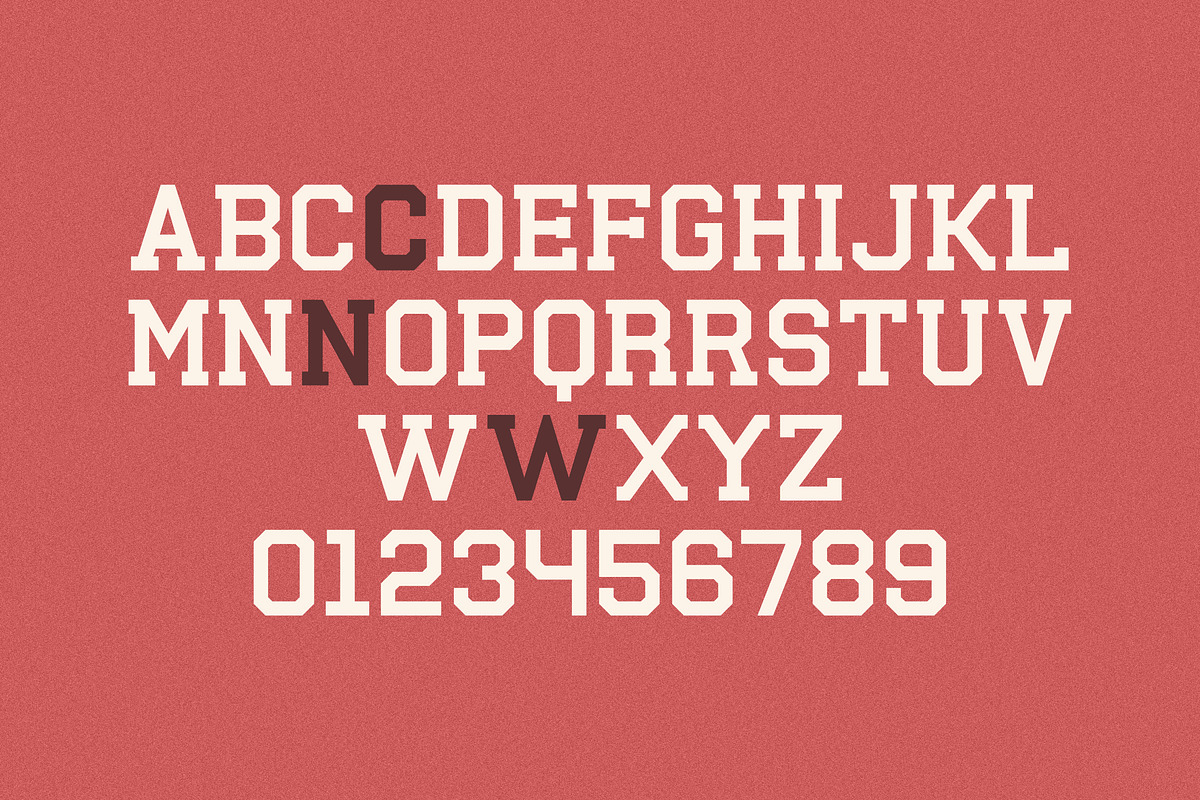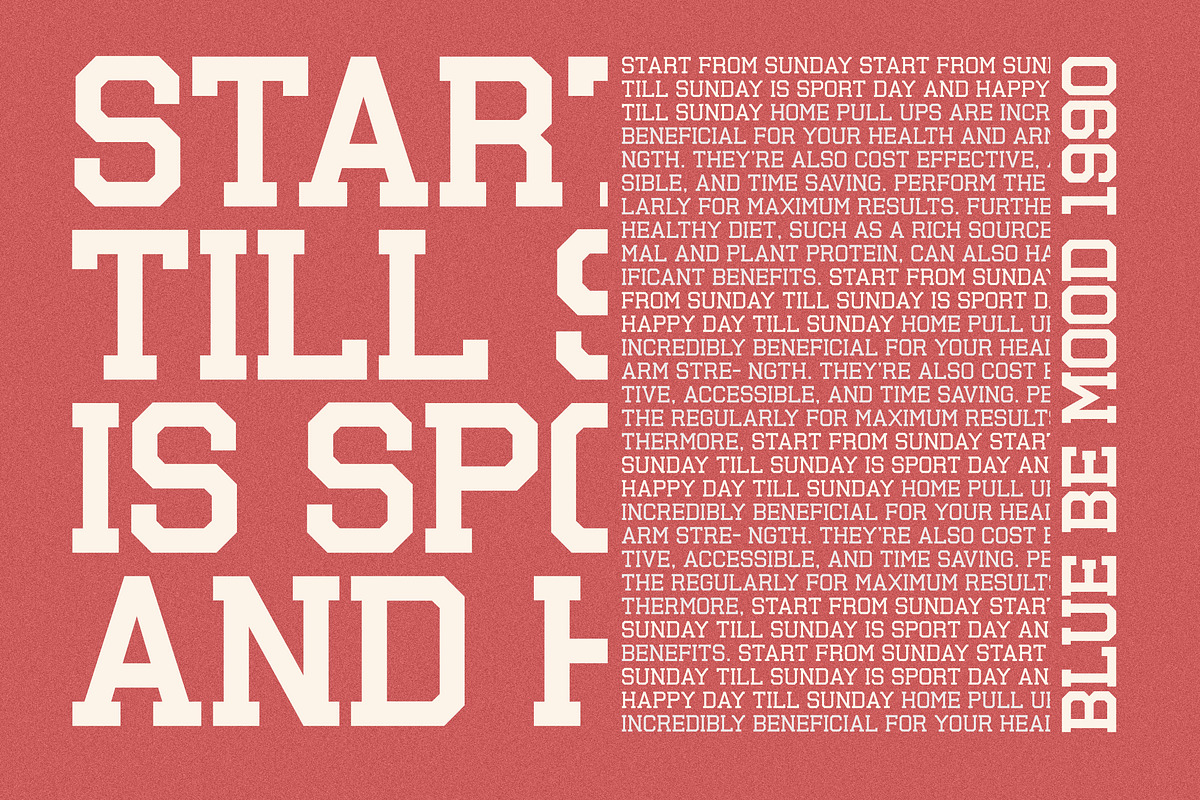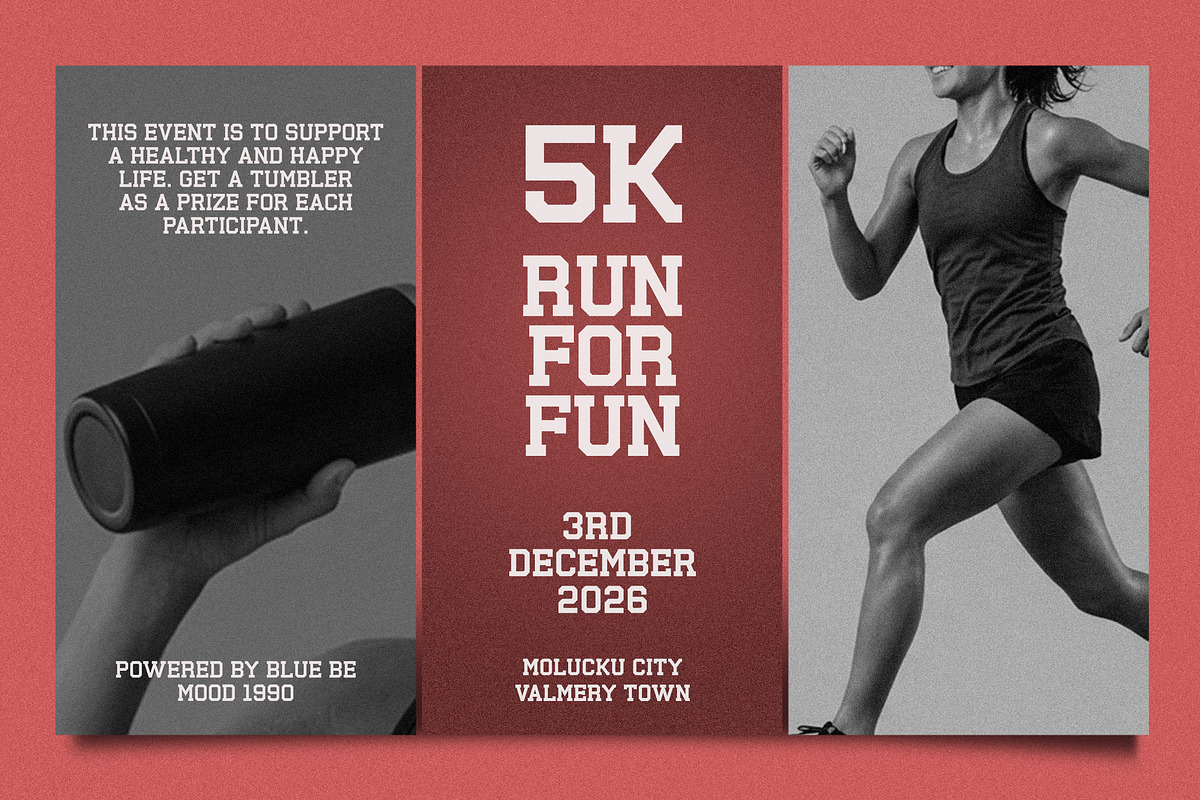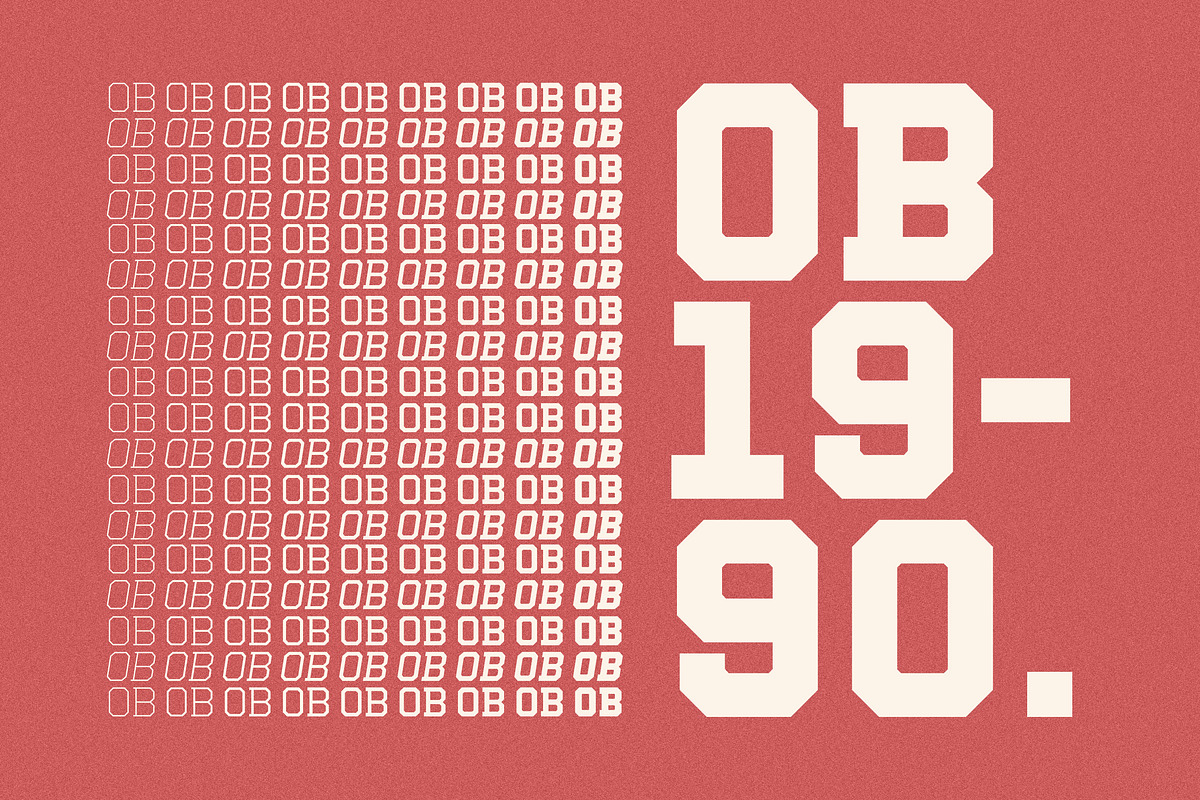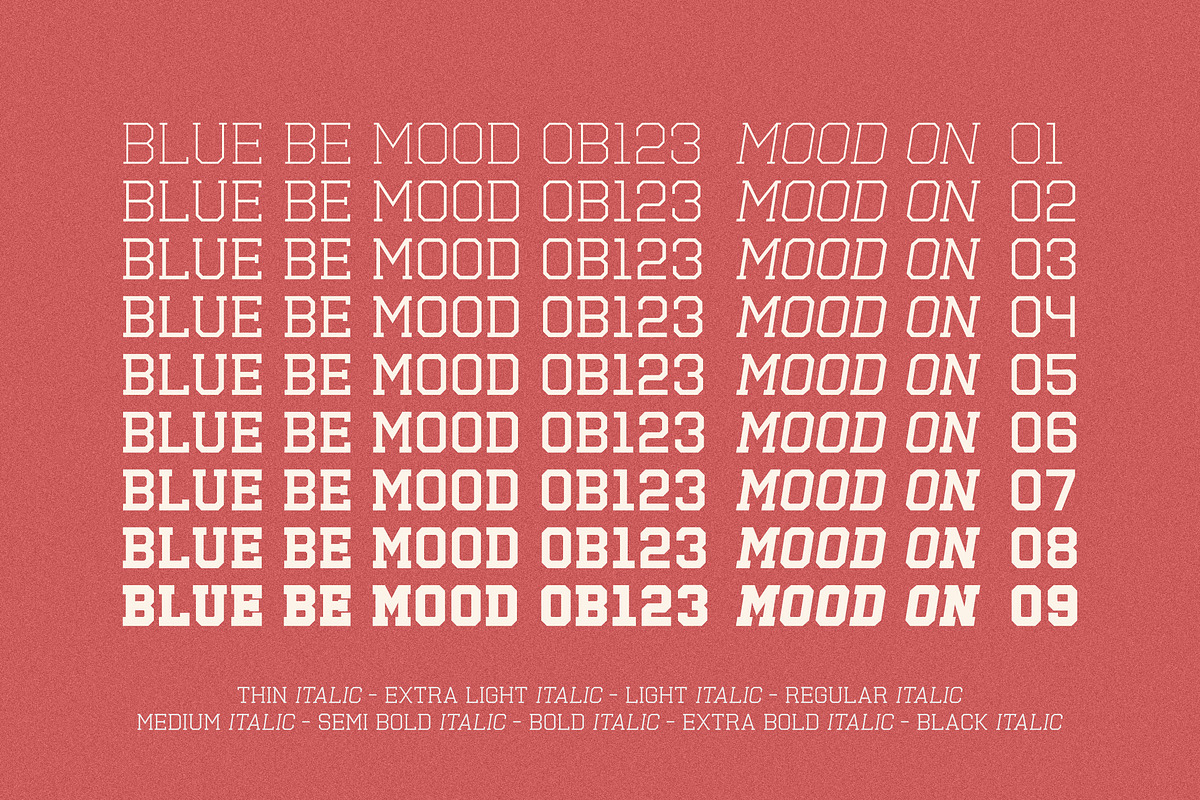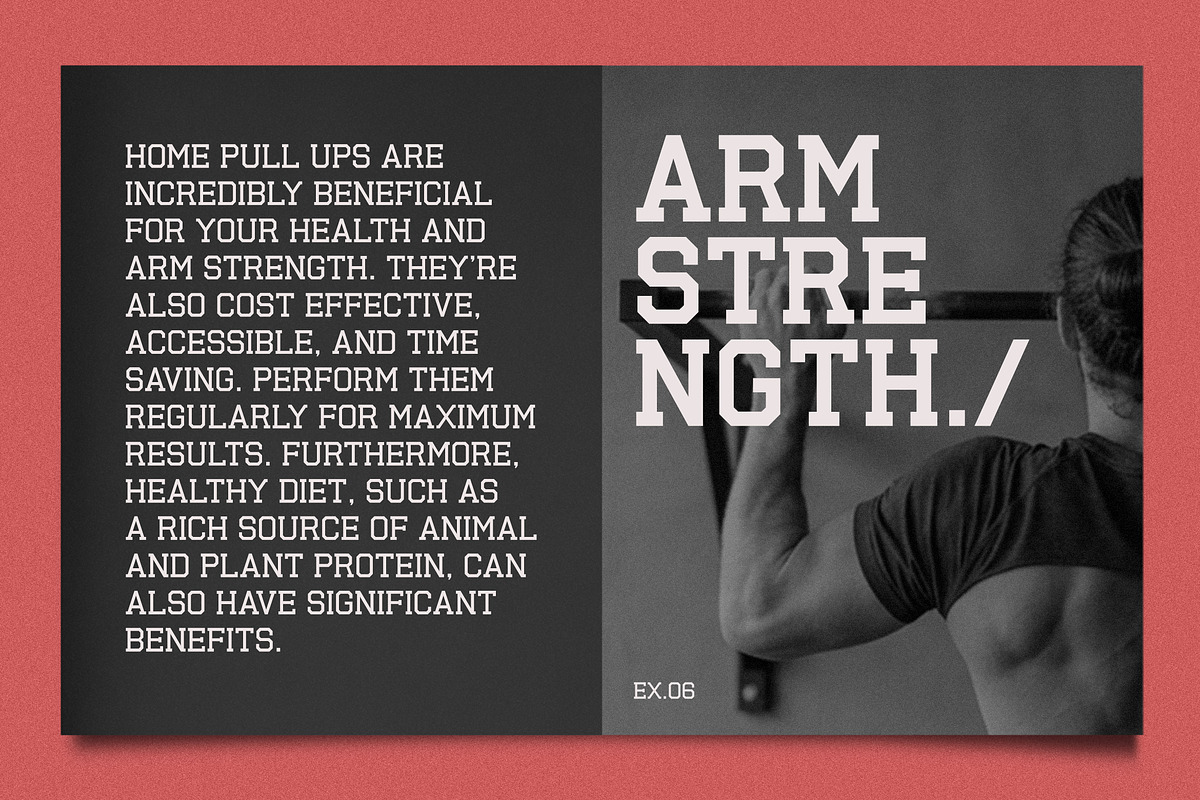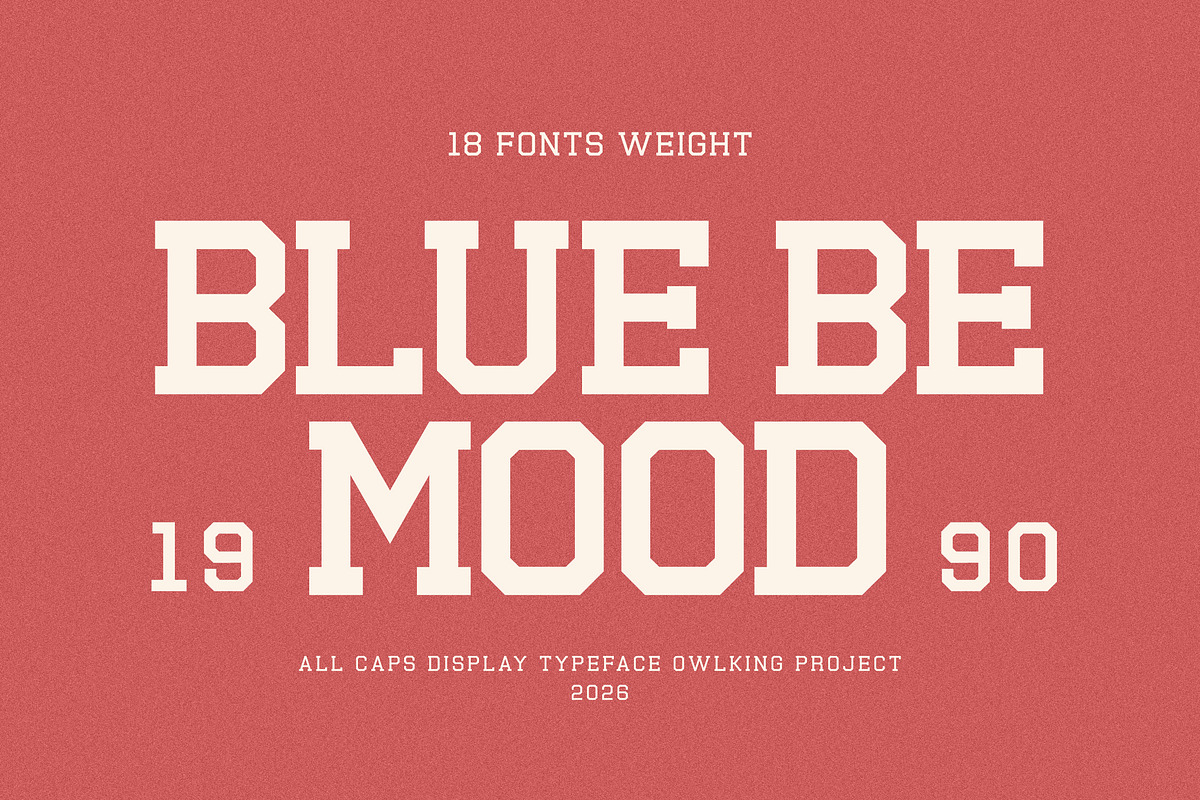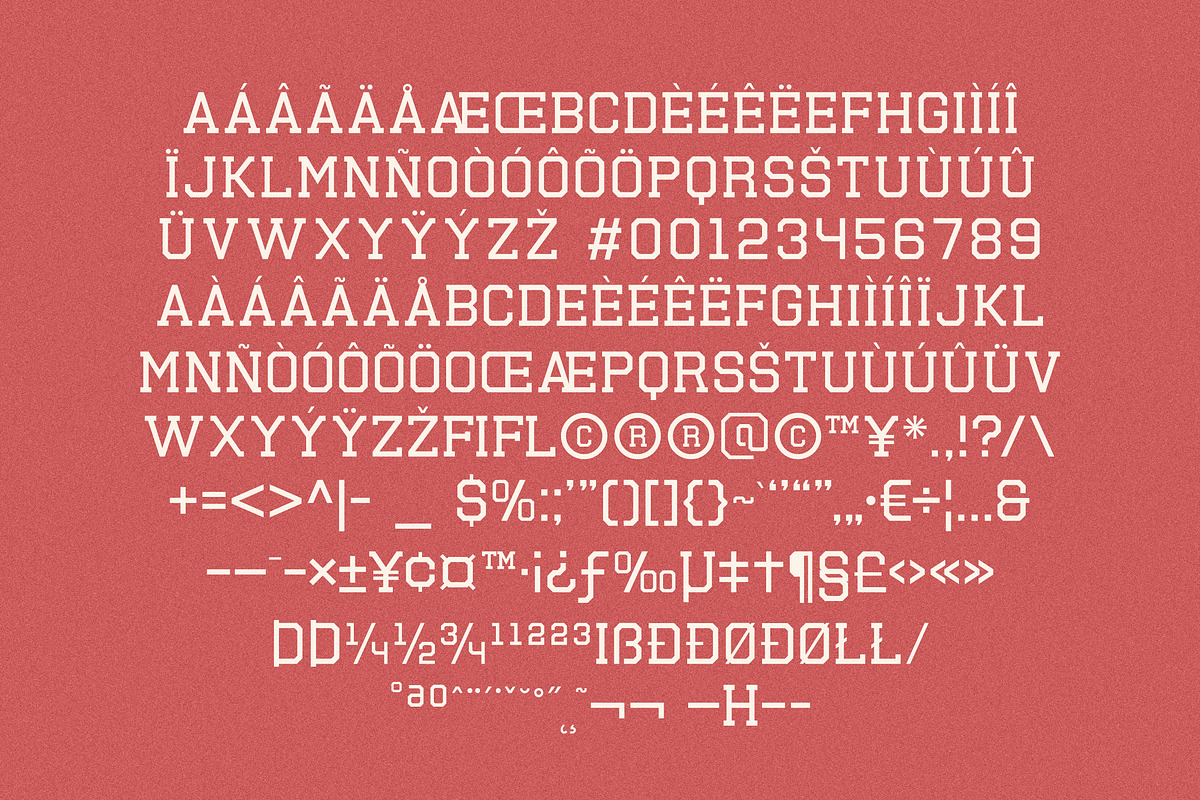
Blue Be Mood
Blue Be Mood (sharp & soft)
is a bold, all-caps display typeface inspired by classic varsity aesthetics, vintage sports, and iconic 90s typography. This family comes fully packed with 18 font weights sharp + soft (ranging from Thin to Black with matching Italics), offering ultimate versatility for both eye-catching headlines and compact body text. Featuring sharp slab like serifs, strong geometric proportions, **Blue Be Mood **captures a timeless look while staying modern and functional.